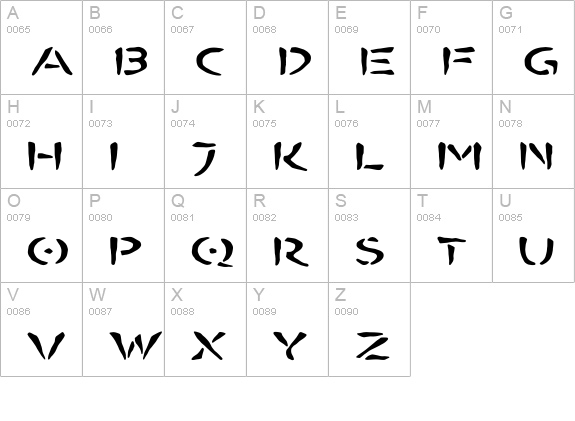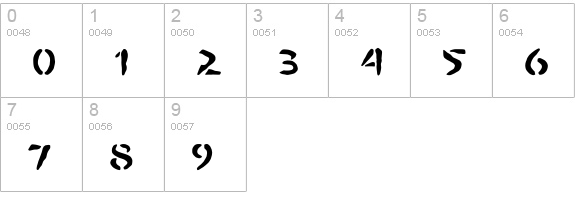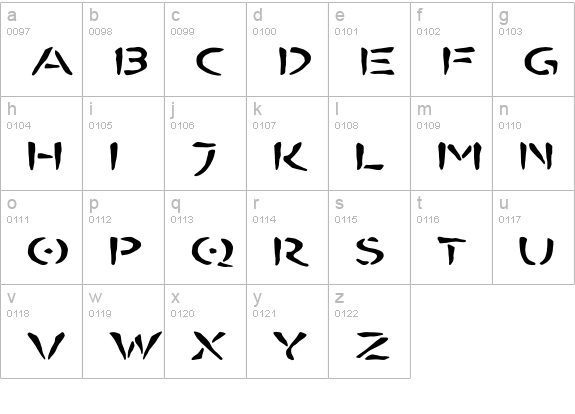
BOMBORA Font Details
Introducing BOMBORA font, a mesmerizing and versatile typeface that is bound to captivate and inspire. With its bold lines and unique character, BOMBORA font exudes a sense of confidence and creativity that is perfect for a wide range of design projects. This font effortlessly combines elegance with a touch of playfulness, making it the ideal choice for both professional and personal use. Whether you're designing a logo, creating eye-catching headlines, or crafting a stunning poster, BOMBORA font will add a touch of sophistication and charm to your work. And the best part? BOMBORA font is absolutely free! That's right, you can download this exceptional font without spending a dime. Simply head over to FontsMarket.com and grab your copy today. With BOMBORA font, the possibilities are endless. Its unique letterforms and distinctive style make it a true standout in the world of typography. Whether you're working on a digital project or print design, this font will make a lasting impression. Don't miss out on the opportunity to enhance your designs with BOMBORA font. Download it for free at FontsMarket.com and unleash your creativity like never before.